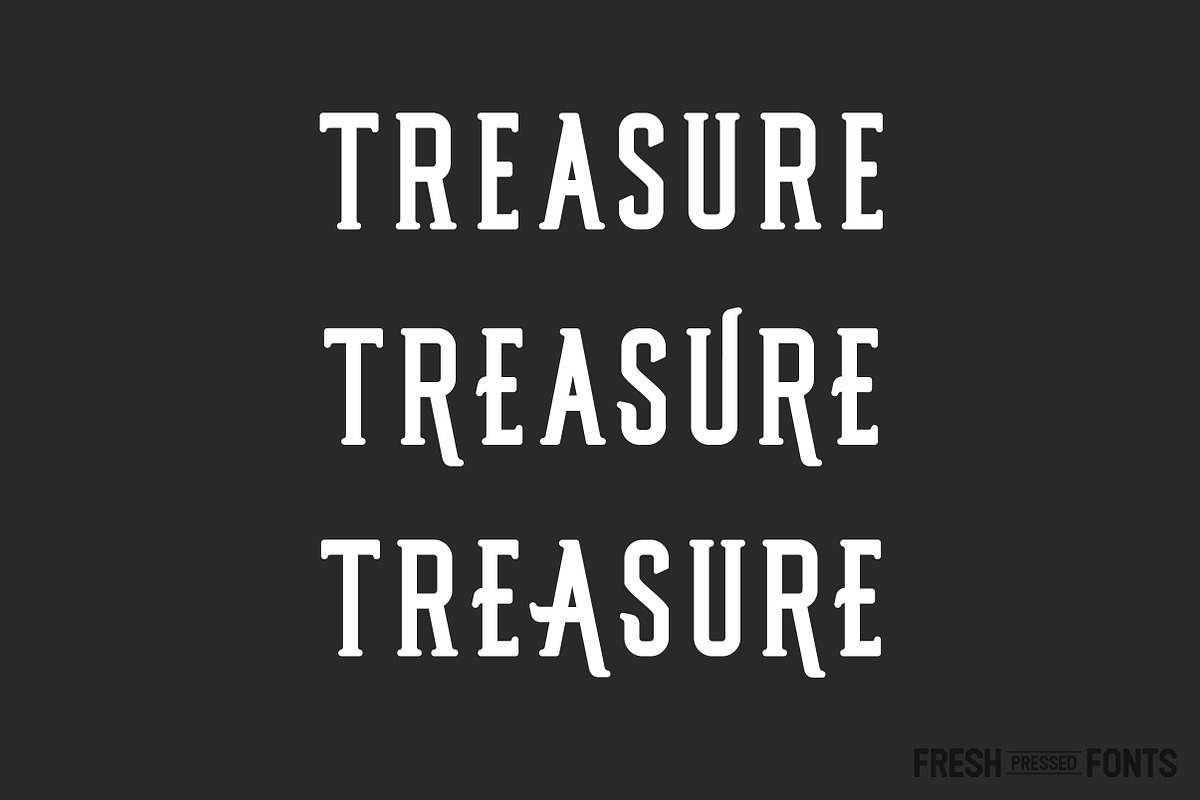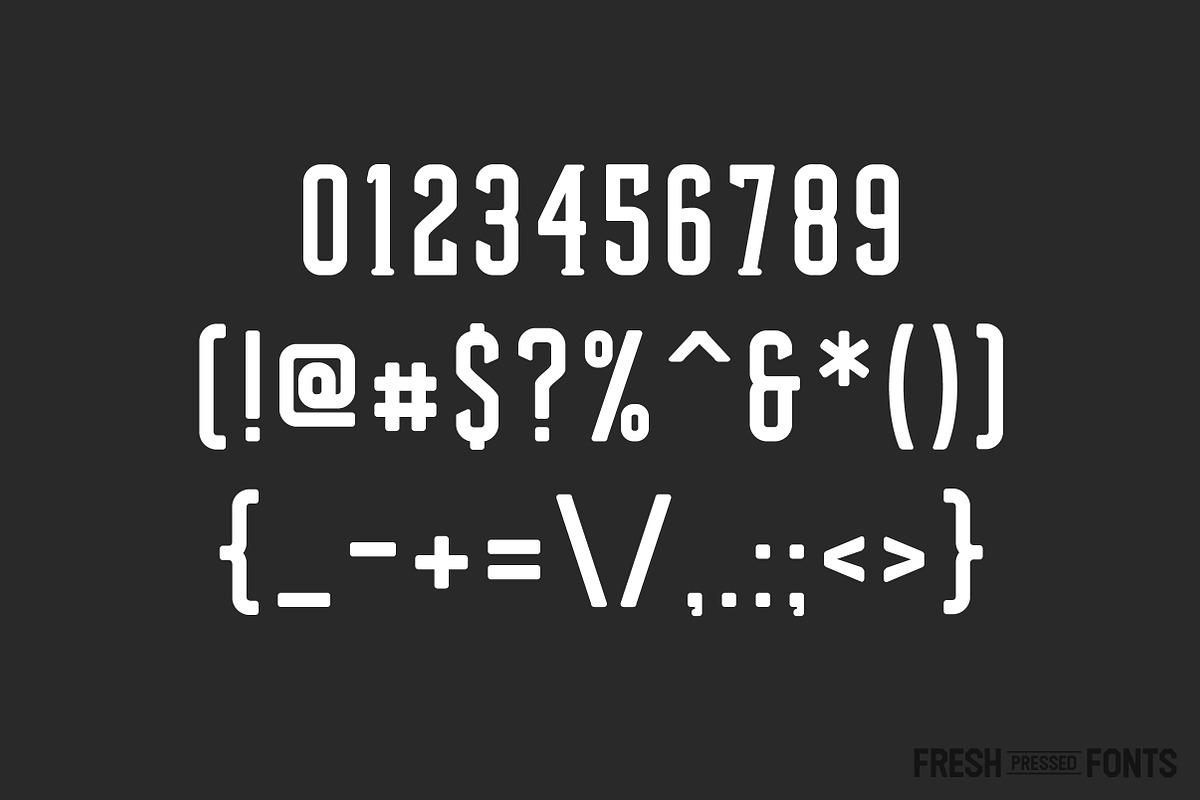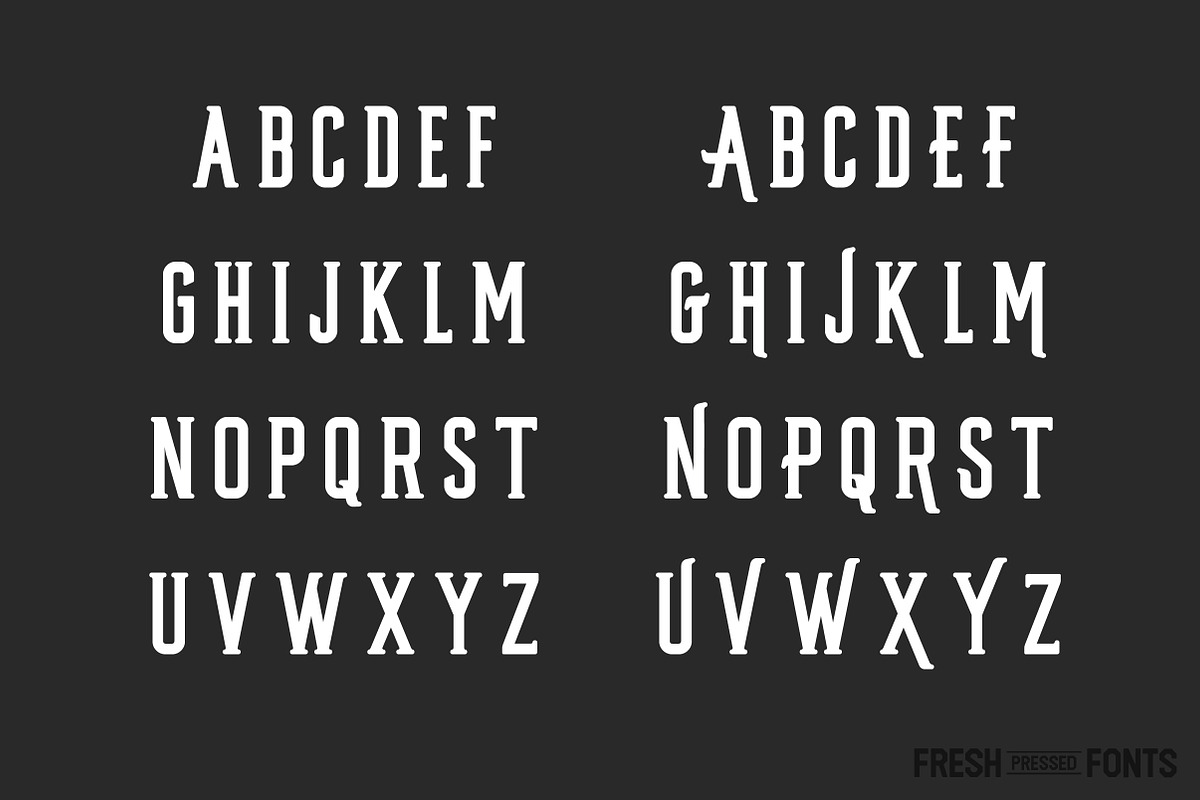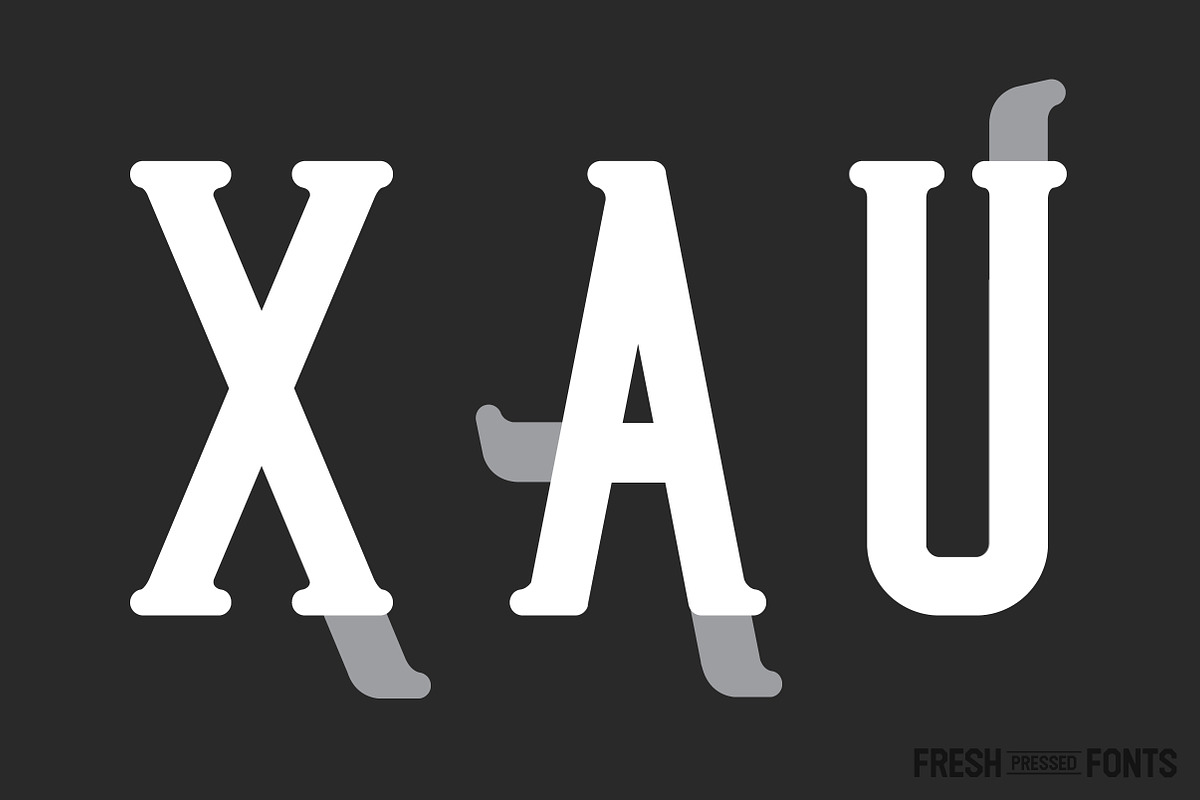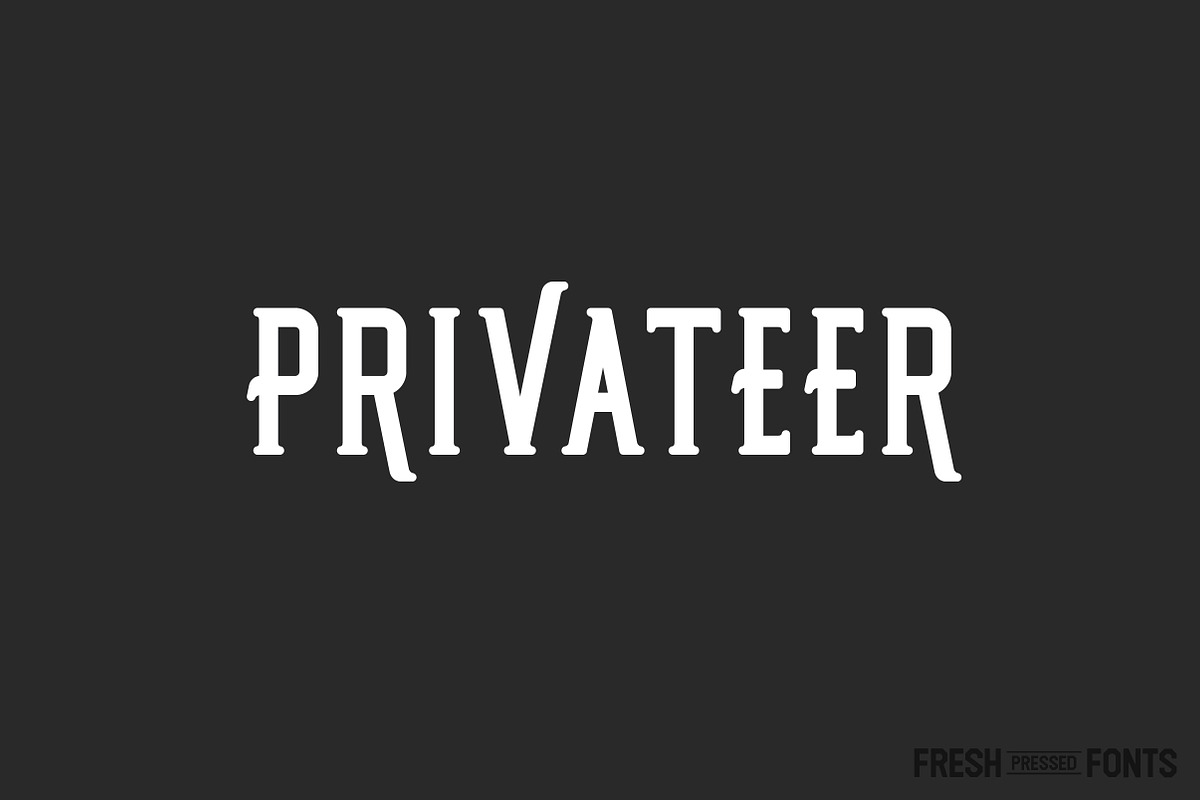
Privateer Display Font
Privateer Display Font by Fresh Pressed Fonts is a font selected for branding, posters, packaging, typography.
- Privateer is a serif display typeface that has two sets of uppercase letters.
Why Privateer Display Font is worth a look
Privateer Display Font by Fresh Pressed Fonts fits naturally into Branding, posters, packaging, typography.